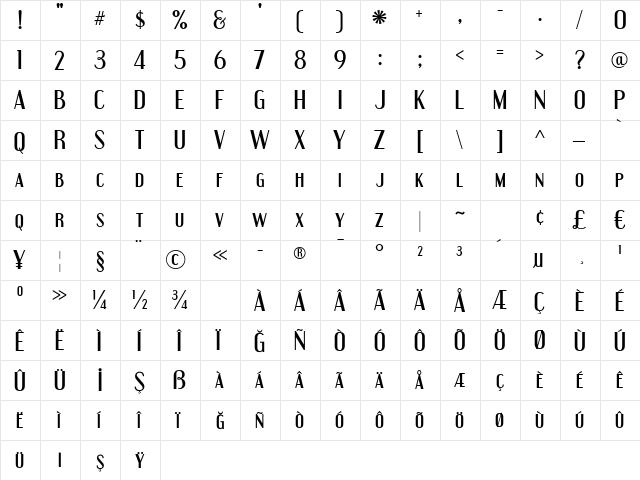
TrSah Engebrechtre Regular
Design Context for TrSah Engebrechtre Typeface
TrSah Engebrechtre offers clean, dependable letterforms without strong stylistic allegiance, making it a practical choice for designers who need flexibility.
Pro Tip: Use TrSah Engebrechtre in both headline and body roles to test its range before committing to a single application.